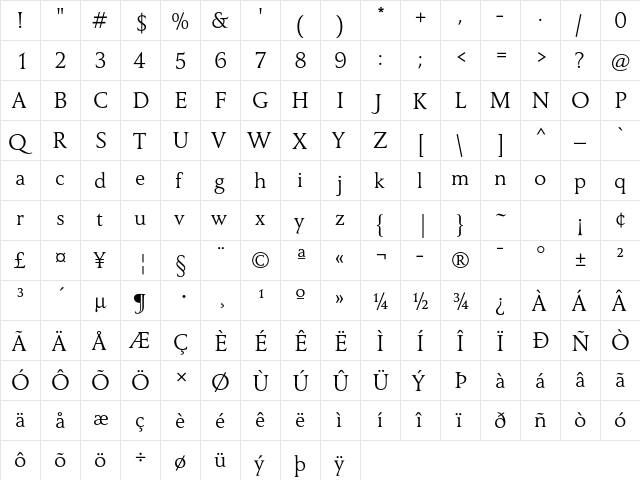
Carre Noir Std Light
Design Context for Carre Noir Std Typeface
Carre Noir Std offers clean, dependable letterforms without strong stylistic allegiance, making it a practical choice for designers who need flexibility. Its slender proportions lend an understated elegance to any composition.
Pro Tip: Use Carre Noir Std in both headline and body roles to test its range before committing to a single application.